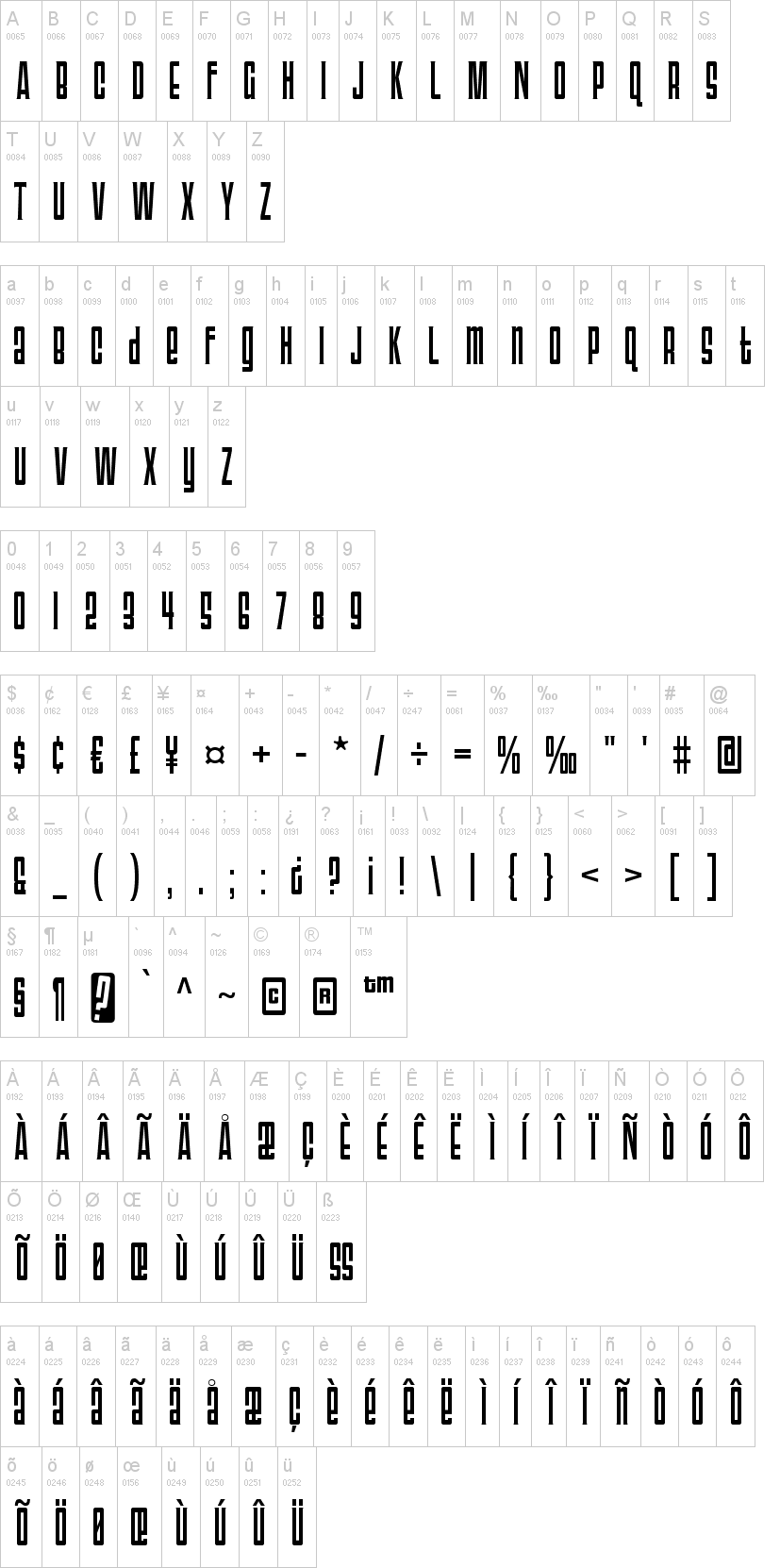
Шрифт Triac 71
Triac 71 is a funk related funk font with funky proportions, funky design and funkular execution. Don't forget to read the files inside the zip for details. Updated in 2012.